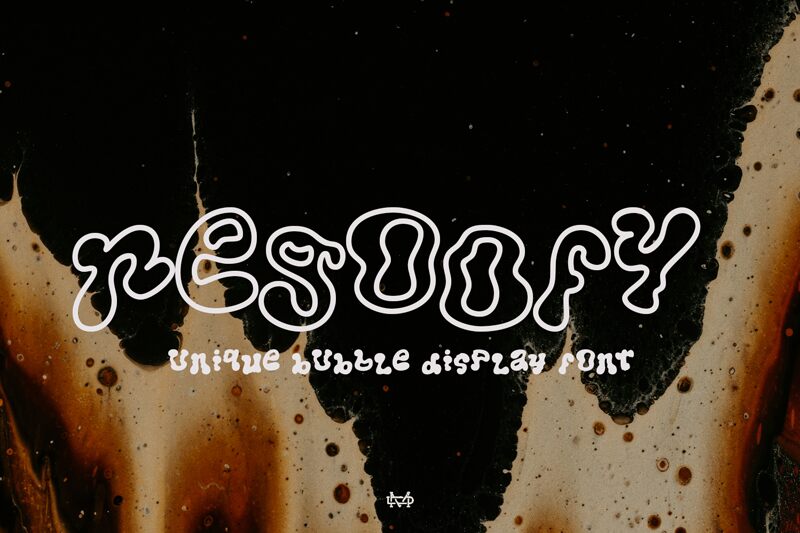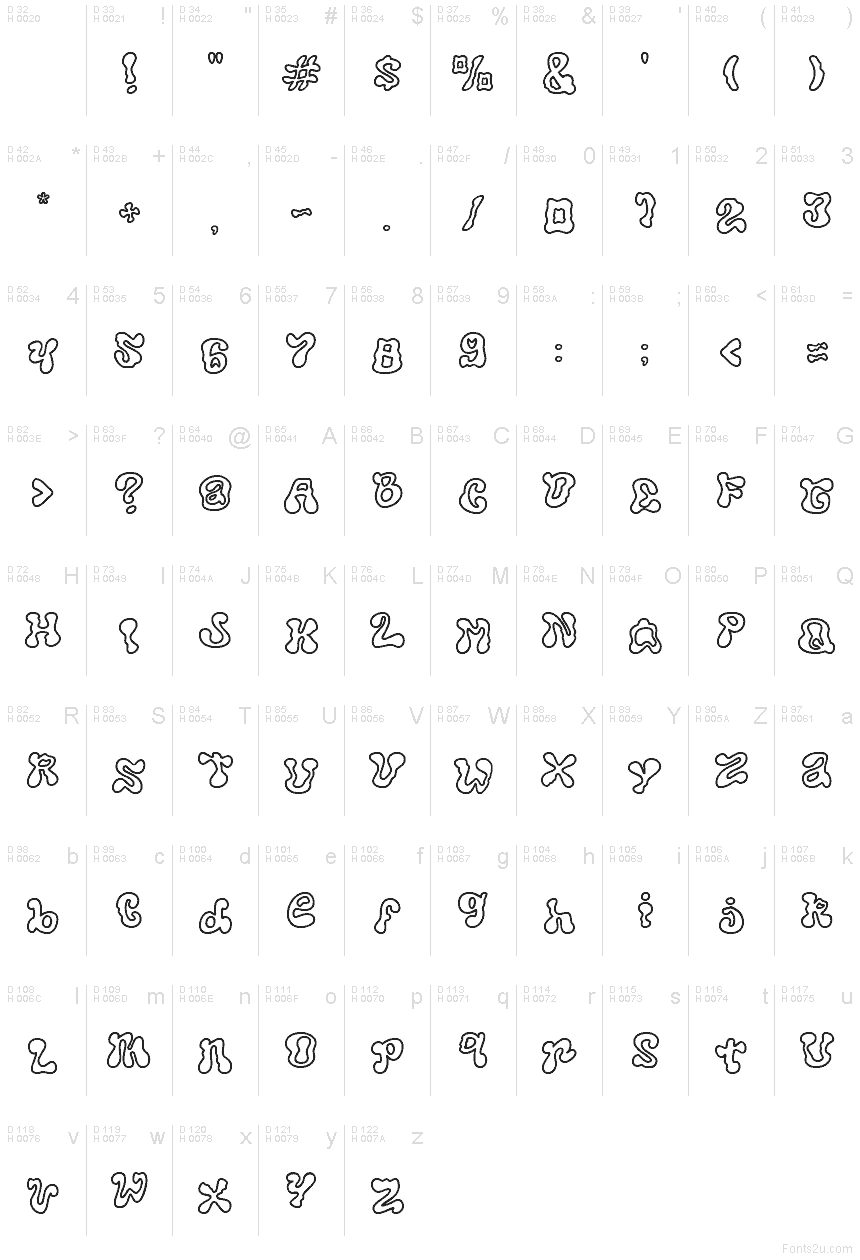
Regoofy font by madeDeduk is a free groovy outline display typeface that looks like it was drawn with a loose, inky marker and left to wobble in the best way. Each letter feels bubbly and squishy, with irregular contours and chunky interiors that give it a playful, almost drippy motion. The hollow outline keeps it airy, so even with its bold personality, it doesn’t feel heavy or cramped on the page or screen.
Using Regoofy, you get a loud, funky voice that shines on party posters, festival flyers, kids’ branding, retro packaging, YouTube thumbnails, merch graphics, and bold social posts. The elastic rhythm of the letters pulls the eye along, making short words and punchy headlines stick in memory. This free font works beautifully when paired with a clean geometric sans for body text, and it’s strongest when used big so those wavy outlines and organic shapes can really breathe.
Презентация и наглядный образец шрифта Regoofy DEMO
Таблица символов шрифта Regoofy DEMO
Таблица символов Regoofy DEMO: Базовая латиница, страница 1
Глифы шрифта Regoofy DEMO — Базовая латиница, страница 1